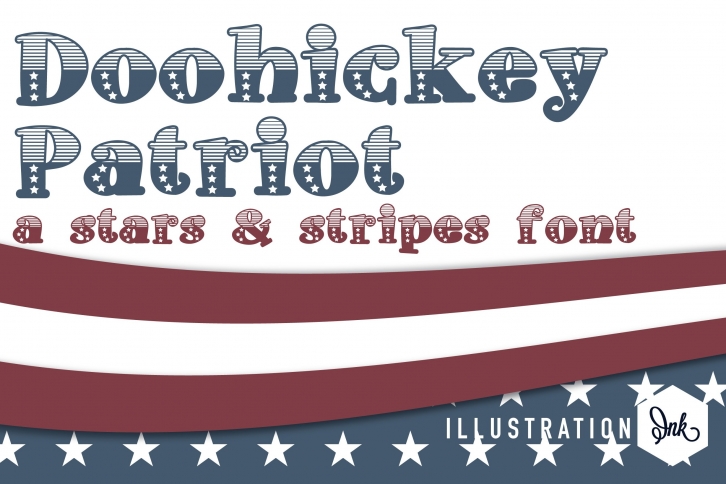
ZP Doohickey Patriot is a beautiful font that was designed by Illustration Ink. It's a great choice for designers and creatives who need such a font. It was released on June 23, 2022 and the file size is 13.45 MB. ZP Doohickey Patriot may give a more youthful, expressive and casual look to your project. It is a very beautiful, refined, elegant, and high-quality font.